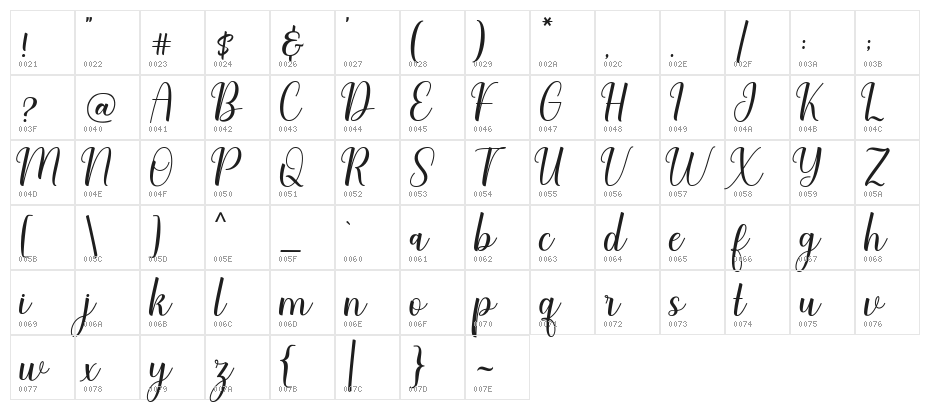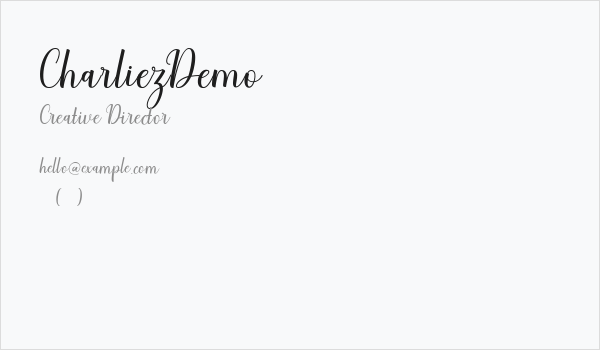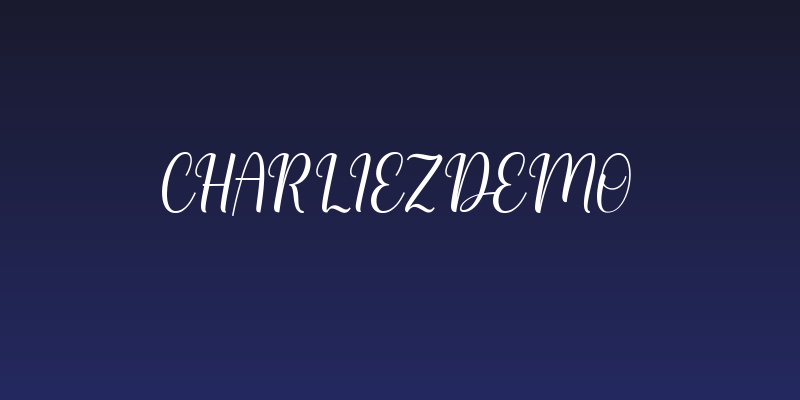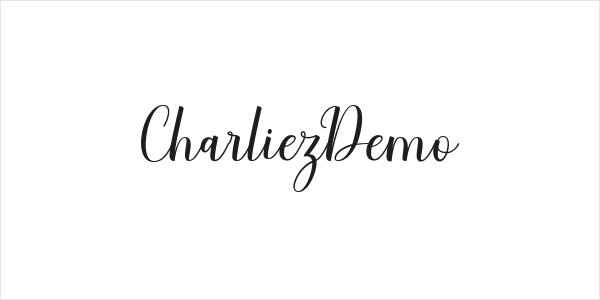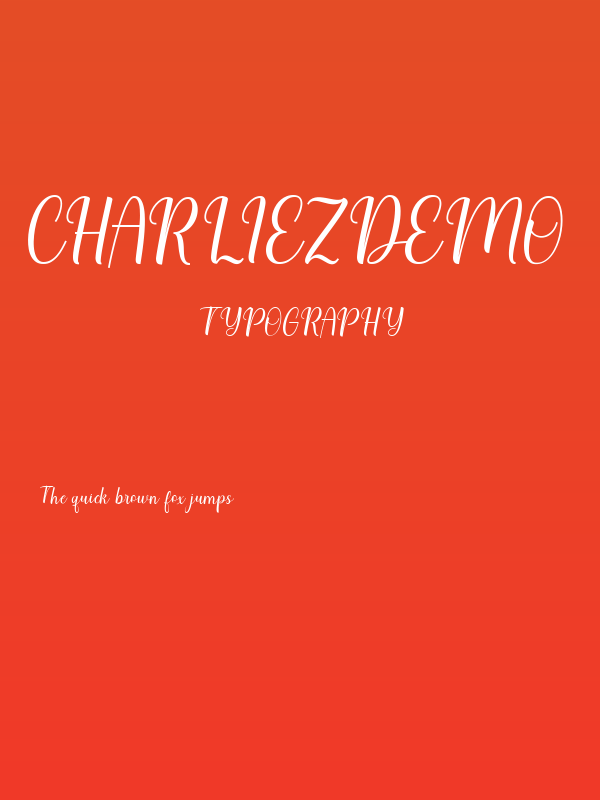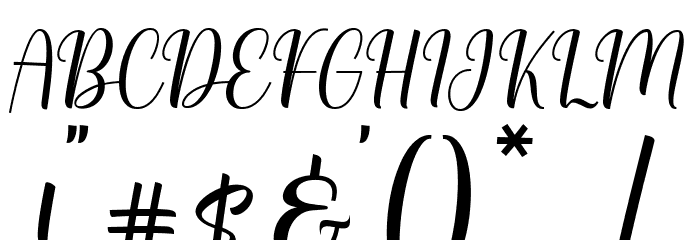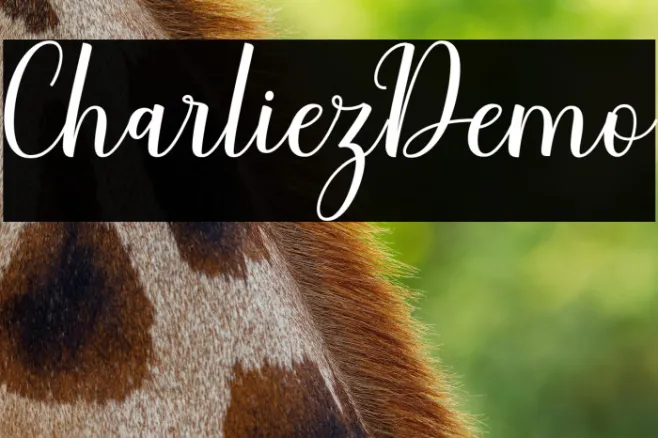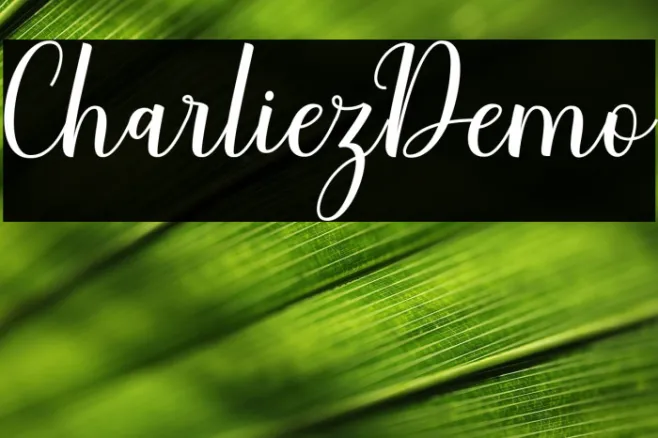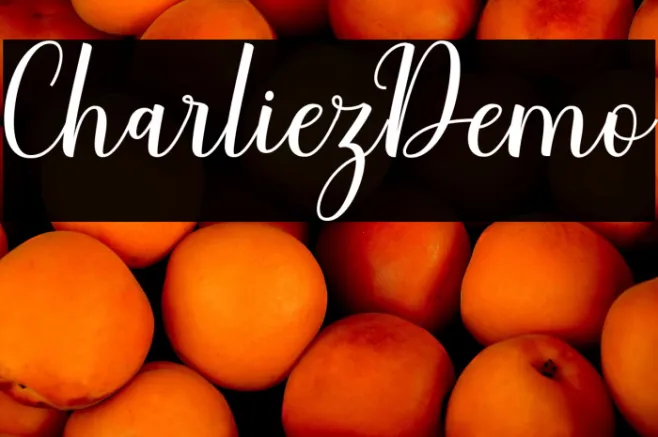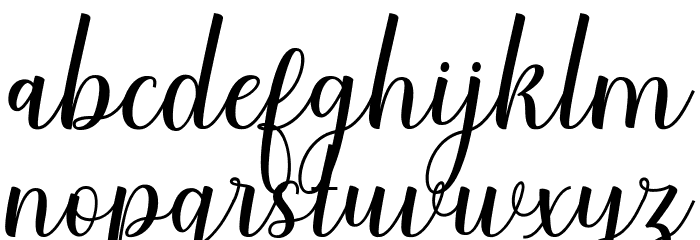
CharliezDemo Font
CharliezDemo Description
This elegant script font features a flowing, cursive style that exudes sophistication and grace. The uppercase letters are tall and slender, with sweeping curves and delicate loops that create a sense of movement and fluidity. The lowercase letters maintain this graceful aesthetic, with smooth, connected strokes that enhance readability while preserving the font's decorative appeal. The numbers and special characters are crafted with the same attention to detail, ensuring a cohesive look across all text elements. This font's overall design is both classic and modern, making it versatile for a variety of design projects.
| Overall Style | Elegant, Modern |
| Proposed Projects | Ideal for wedding invitations, elegant branding, greeting cards, and upscale packaging. |